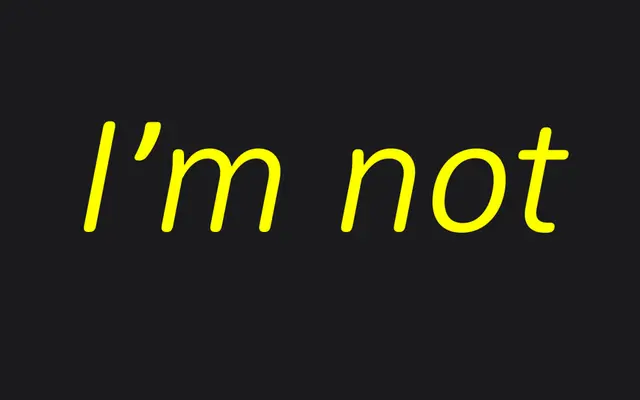
Dico
Bold Monday · Pieter van Rosmalen, Diana Ovezea, Jacques Le Bailly · 2004
A suite of eight sub-families by Pieter van Rosmalen, built around a compact humanist sans originally drawn in 2004 for Teldesign and expanded to 45 fonts spanning slab, monospaced, code and typewriter variants.
Compact proportions and open, restrained letterforms define the core sans, which gains warmth through its swinging italics and a rounded Soft variant. The family extends into proportional and monospaced slab cuts, two Code variants with swapped defaults and alternative letterforms for coding clarity, and a Typewriter subfamily offering roughened mono versions of the Sans, Slab and Script. Monospaced script styles loosely based on the Corinthian Script for the IBM Selectric add a further, more playful register to the system.
The core family is a compact, open sans-serif with warm, friendly letterforms and swinging italics, characteristics consistent with humanist sans design. The suite expands into slab, monospaced and script sub-families, but the proportional sans forms the structural and tonal centre.